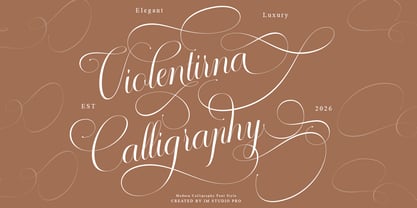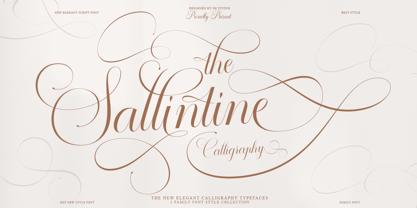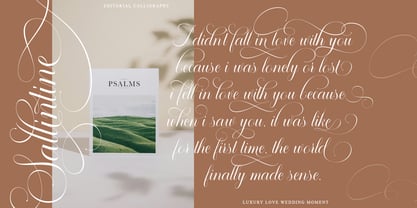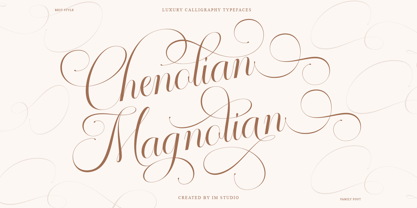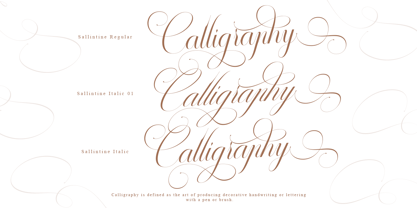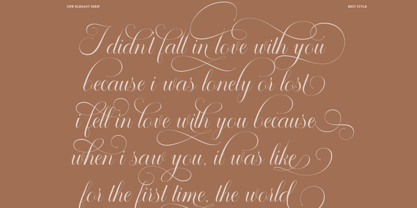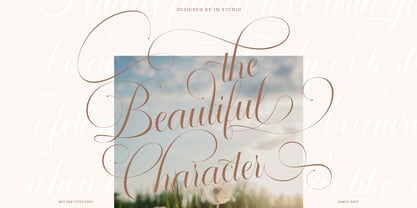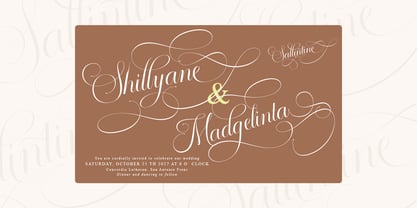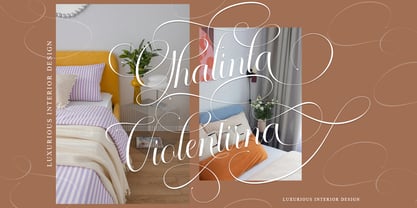
Sallintine Calligraphy
La famille de polices Sallintine Calligraphy a été conçue par Ikhsan Maulana et publiée par IM Studio. Sallintine Calligraphy contient 3 styles et options de package familial. En savoir plus sur cette famille
Sallintine Calligraphy is an elegant and sophisticated script font that beautifully blends the timeless charm of classic copperplate calligraphy with a fresh, modern twist. Designed with meticulous attention to detail, this typeface exudes graceful style and refined luxury—perfect for projects that deserve a visual flair.
Smooth, clean, feminine, and easy to read, Sallintine Calligraphy is enriched with beautiful letter connections and a variety of stylish alternates. Its versatility makes it ideal for both formal and creative applications, including wedding invitations, branding, logos, restaurant menus, editorial fashion, beauty product packaging, greeting cards, stationery, book covers, magazines, and advertising materials.